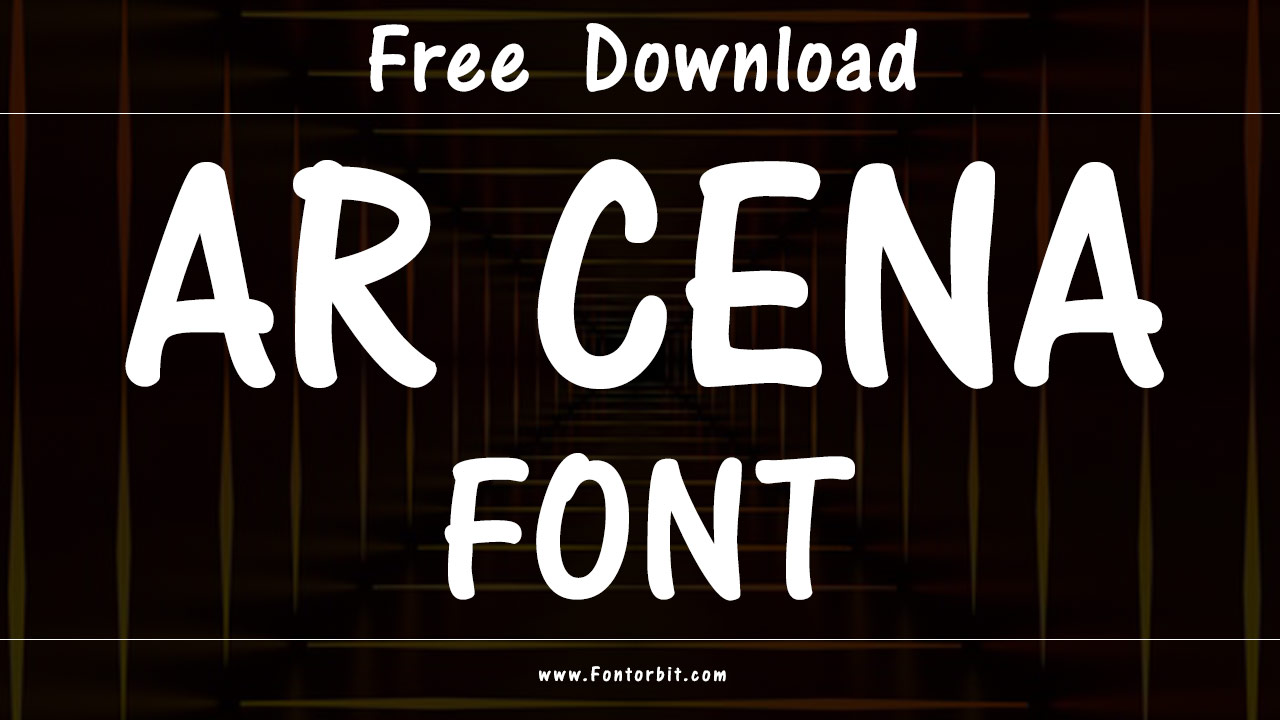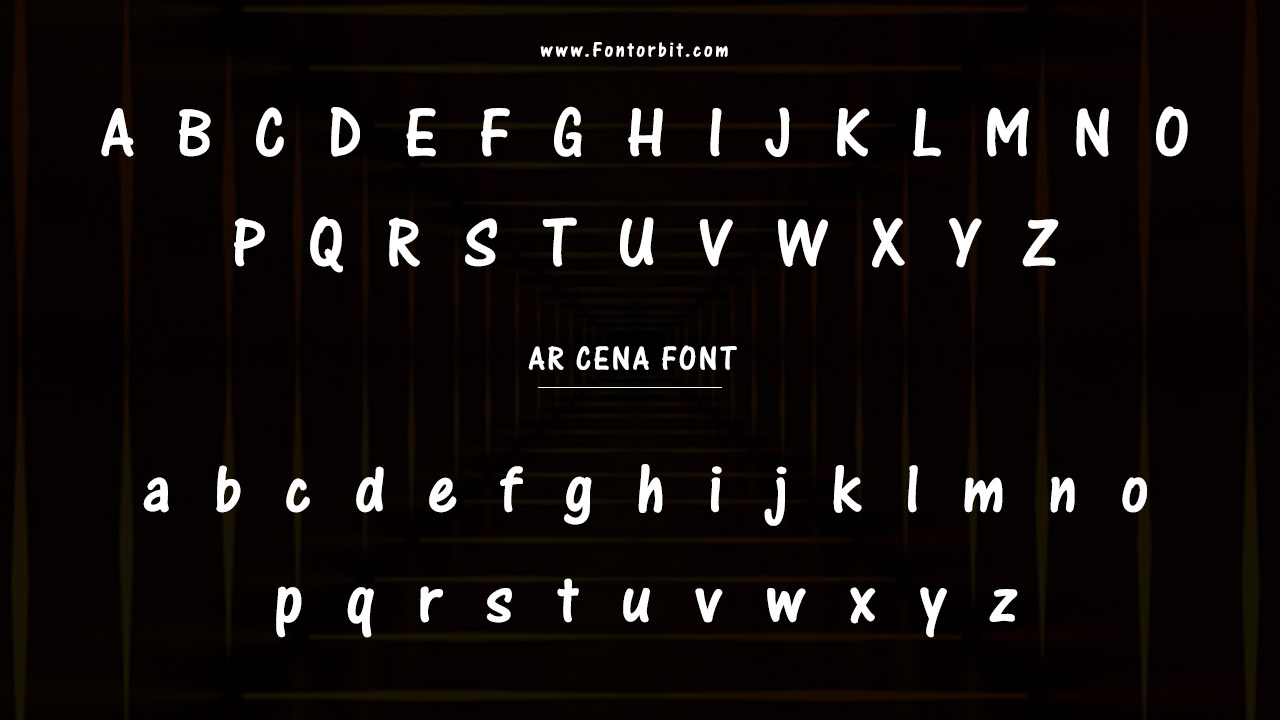
The AR CENA Font brings a fun, cartoonish aesthetic to your design projects. Designed by Pndes Gndes, this playful display font is perfect for adding a whimsical, light-hearted touch to various personal and commercial uses. While not officially created for any specific character, AR CENA shares a unique style that is perfect for fun, creative projects.
The Ar Cena Font Family
AR CENA Font falls under the Display category with a Fancy and Cartoon style, making it ideal for creative and playful designs. The font family includes:
- AR CENA (Main style)
Using Ar Cena Font
The AR CENA font is perfect for a variety of design projects that require a playful, eye-catching look. It is perfect for:
- Website text
- Children’s materials
- Invitations and greeting cards
- Themed events
- Posters and banners
The AR CENA Font In Use
AR CENA Font is a versatile and fun typeface that works best for projects requiring an energetic and quirky vibe. Whether you are designing a playful logo, fun invitations, or websites, AR CENA brings an element of charm and personality to your work. Its bold, playful aesthetic can be used to create impactful headlines or catchy text that engages readers.
AR CENA Font is a fun and unique display font perfect for a wide variety of personal projects and design projects. It captures the whimsical charm needed for headlines, logos, and more, making it a go-to font for playful designs. Whether you are creating something for a child-friendly project or a creative branding design, AR CENA adds personality and flair.
1. What Types Of Designs Are Best Suited For AR CENA Font?
AR CENA is perfect for cartoonish and playful designs. It is ideal for projects like children’s books, party invitations, event branding, and advertising materials. The font’s bold and fun style adds personality to headlines and logos, making it a great choice for creative design projects that need a lively, engaging vibe.
3. How Does AR CENA Font Compare To Other Fonts Like Script Or Sans Serif fonts?
Compared to script fonts, sans serif fonts, and even gothic fonts, AR CENA stands out with its bold and cartoonish style. Unlike the formal or clean lines of traditional sans serif fonts or the ornate curves of script fonts, AR CENA exudes a playful charm, perfect for text in headlines, event materials, and fun branding projects. It’s especially useful for designs that need to capture attention quickly.
5. Can AR CENA Be Used On Websites And Digital Designs?
AR CENA is a versatile font that can be used for websites, headlines, and main content on digital platforms. It brings a fun, engaging style to any web design project. Whether you’re designing an interactive website or email campaigns, AR CENA can help capture attention and enhance reader interactions with its bold and playful appeal.